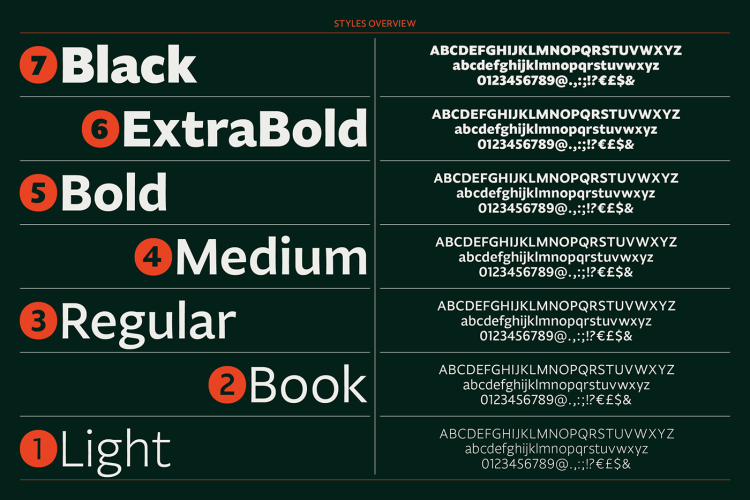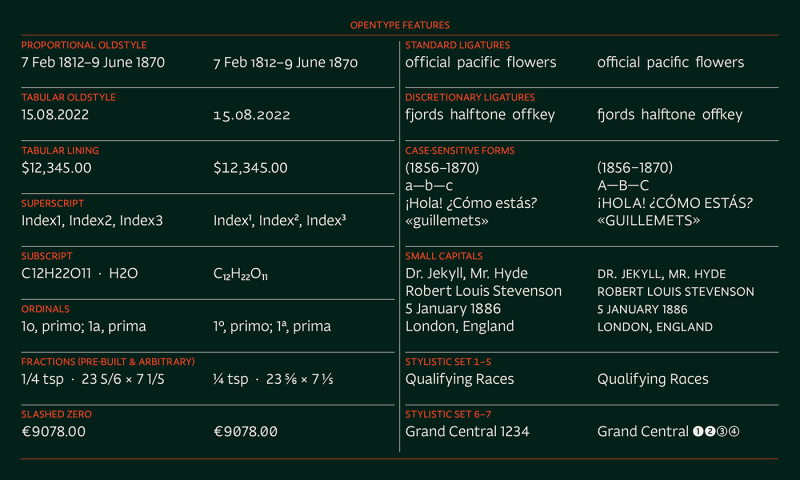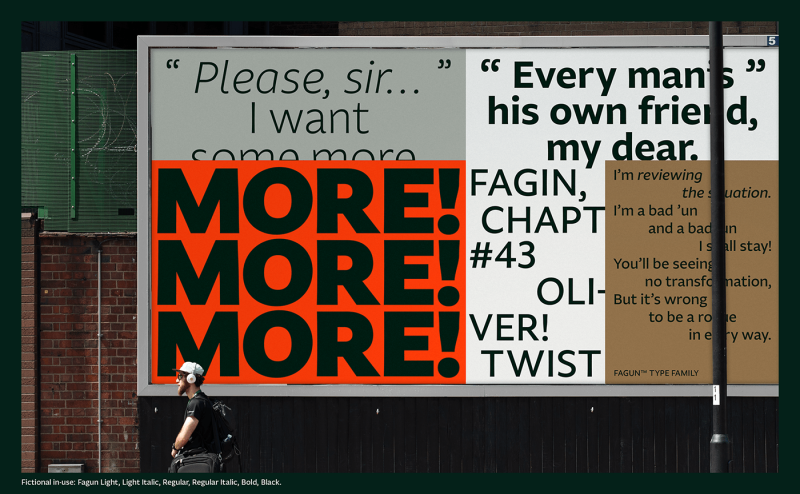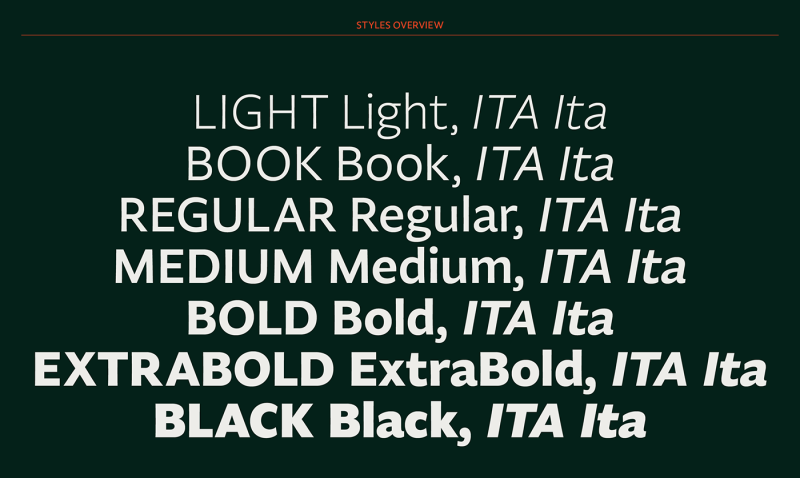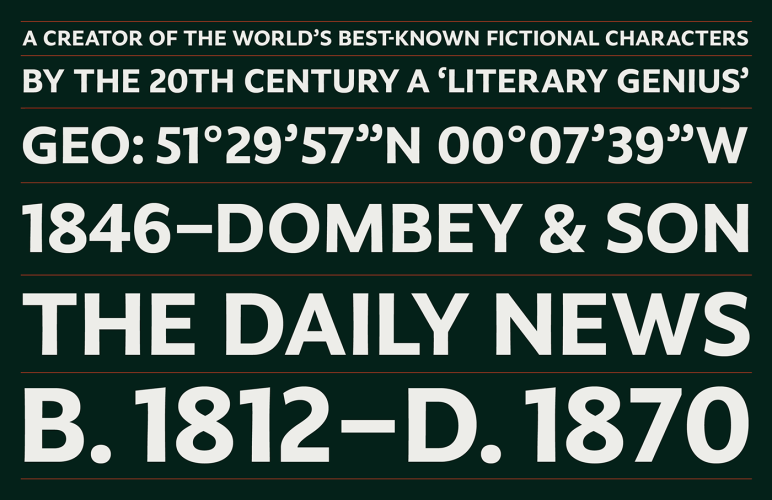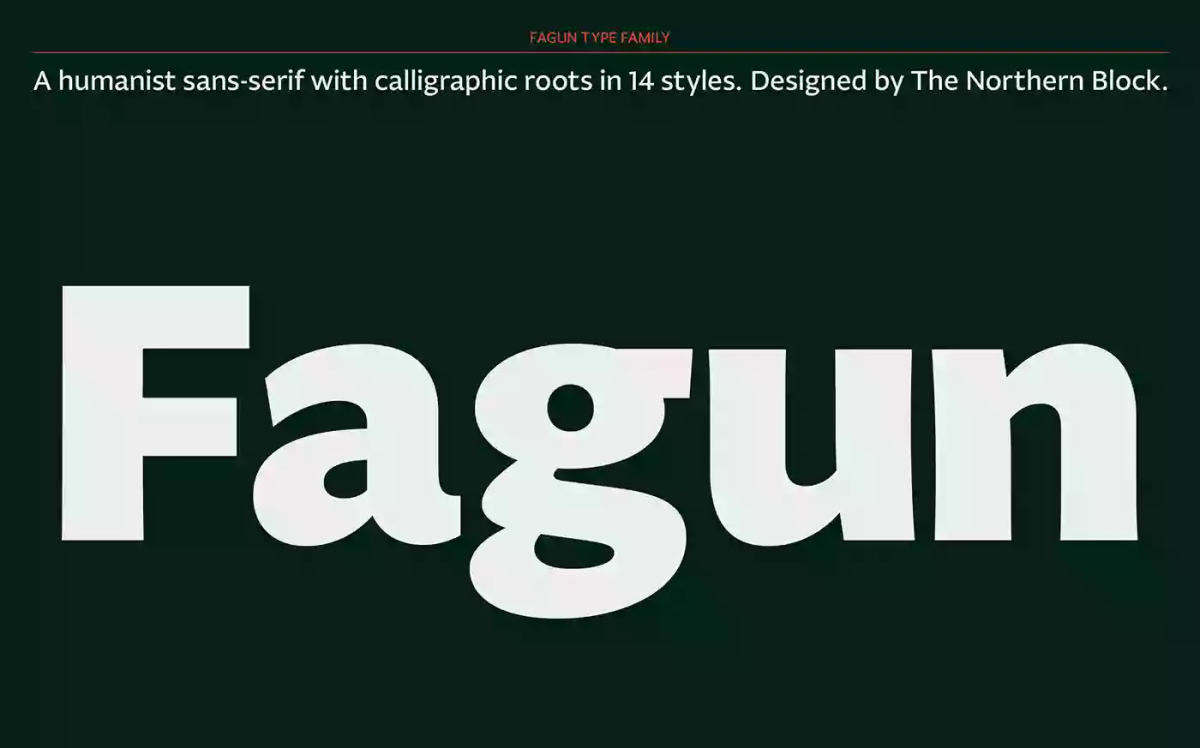
Fagun Font Family
Fagun is a humanist sans-serif with calligraphic roots. The method combines broad nib pen-style strokes with straight-line geometry to form a compelling and coherent typ…
Fagun is a humanist sans-serif with calligraphic roots. The method combines broad nib pen-style strokes with straight-line geometry to form a compelling and coherent typeface suitable for long lines of text. Each character has the right balance of diagonal contrast, which creates a pleasant contradiction between internal and external lines. The result is an original design with incredible clarity and usability across many text-based scenarios. The font includes over 700 characters per style, seven weights with matching italics. OpenType features consist of nine number variations inferiors, superiors, fractions, tabular, lining, circled, and old style. It also has alternate lowercase a, e, g, l, y, small caps, and language support covering Western, Southern, and Central Europe.
Where Fagun Font Family works best
Fagun Font Family stays legible at small sizes, which makes it a strong choice for navigation, buttons and dashboards in web design and app interfaces.
Clean sans serifs like Fagun Font Family are the default language of SaaS, fintech and product branding.
What is Fagun Font Family good for?
Fagun Font Family is a Sans Serif Fonts typeface tagged Calligraphy, Humanist, Sans Serif, Sans Serif Fonts. It works well for headlines, logos, posters, social media graphics and branding projects that need a distinctive sans serif fonts look.